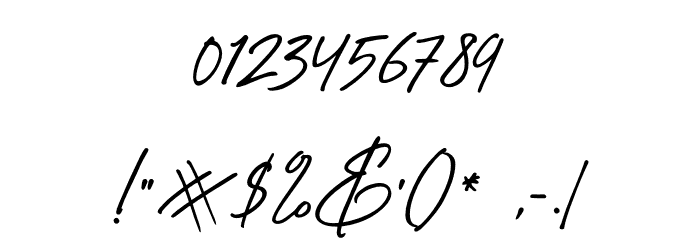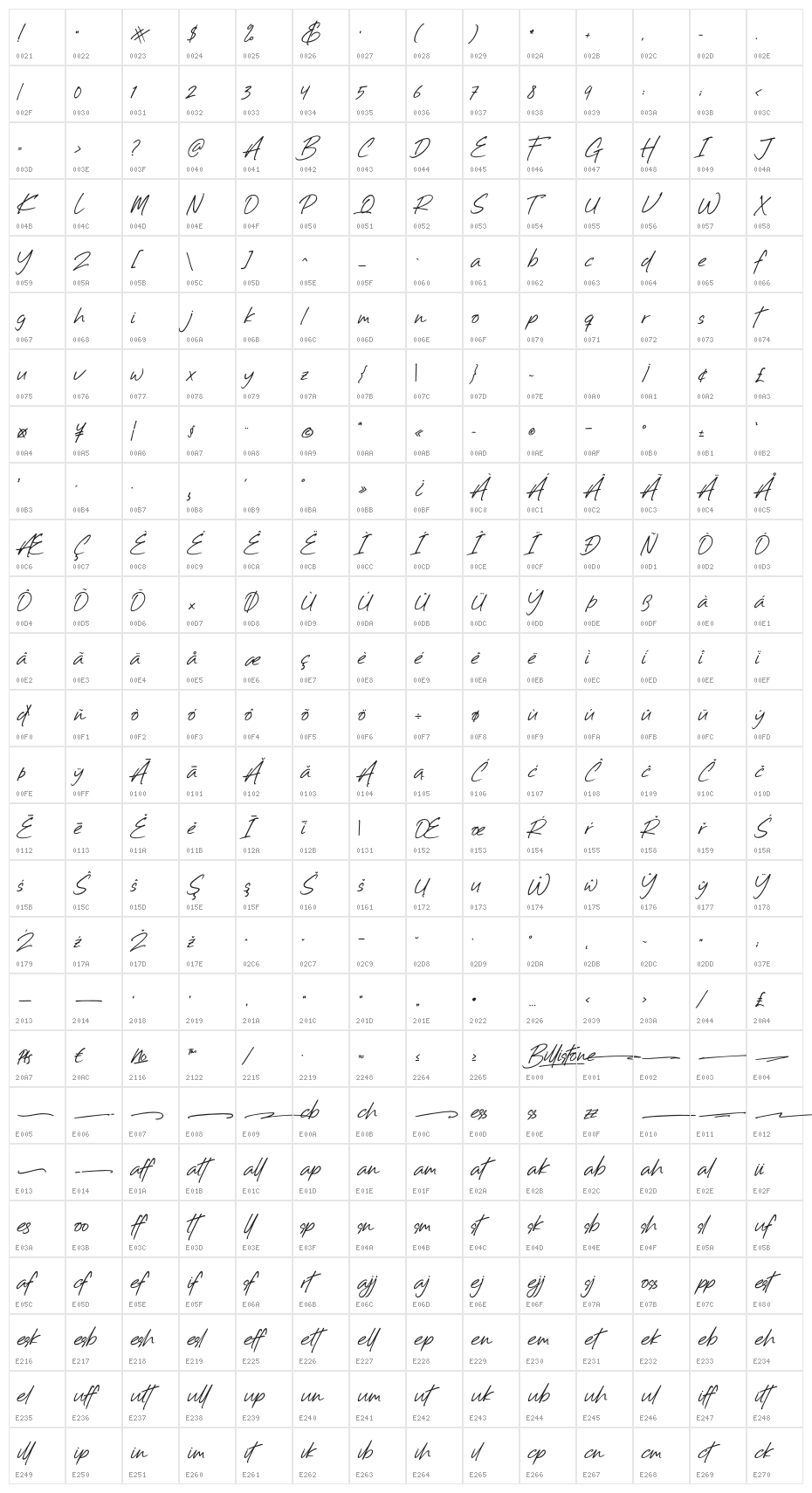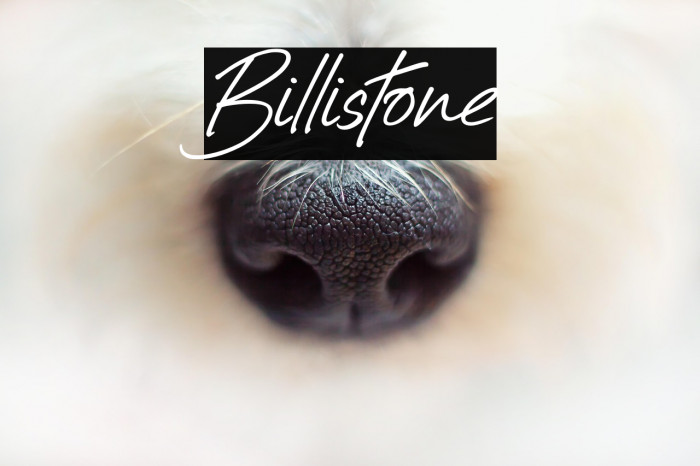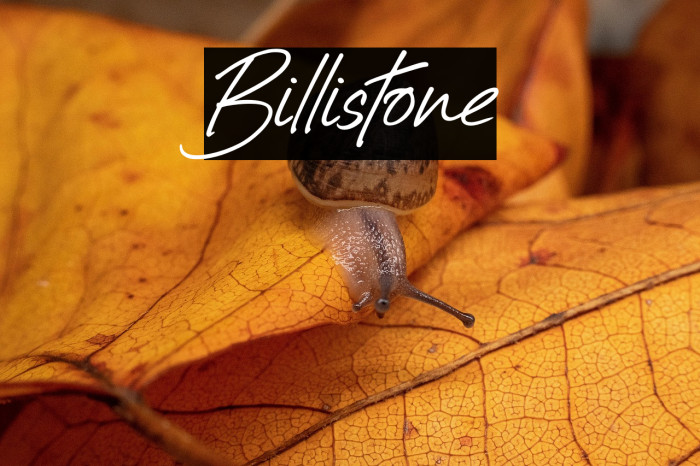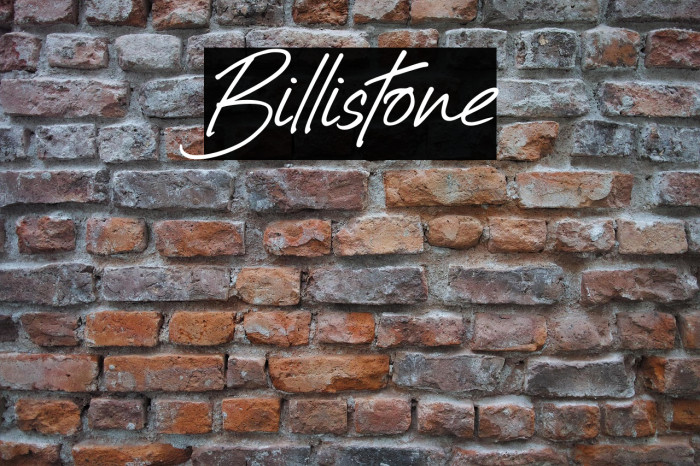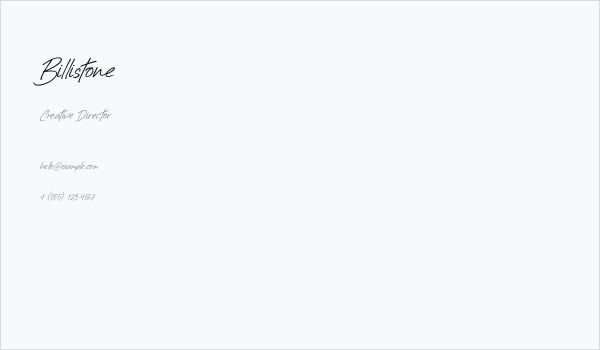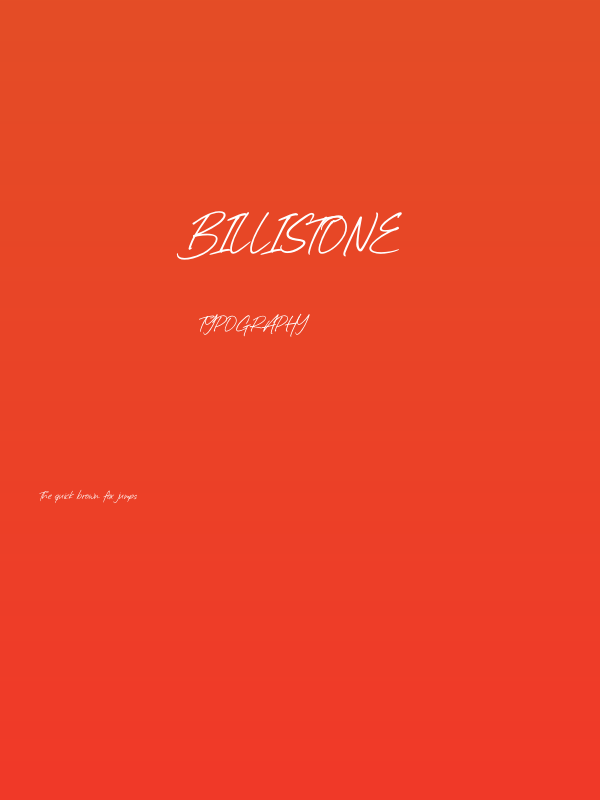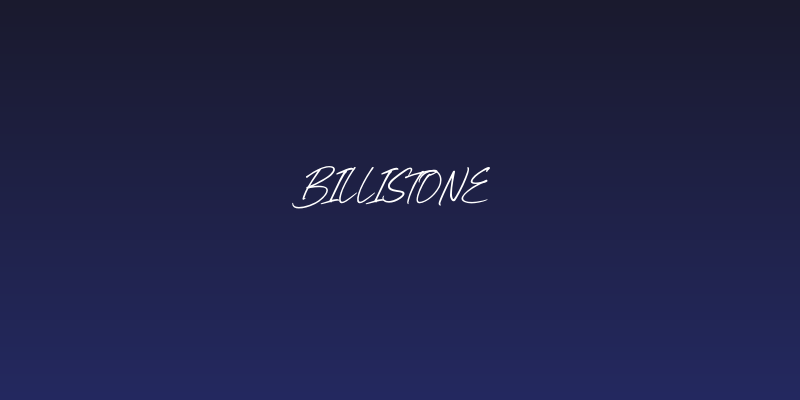
Billistone Font
Billistone Description
This font exudes a dynamic and energetic feel with its fluid, handwritten style. The characters are crafted with a natural flow, resembling authentic cursive handwriting. Each letter connects seamlessly, creating a sense of movement and continuity. The strokes vary in thickness, adding a lively and personal touch to the text. The uppercase letters are bold and prominent, while the lowercase letters maintain a consistent rhythm. Numbers and special characters are designed to match the overall style, ensuring a cohesive look across all text elements.